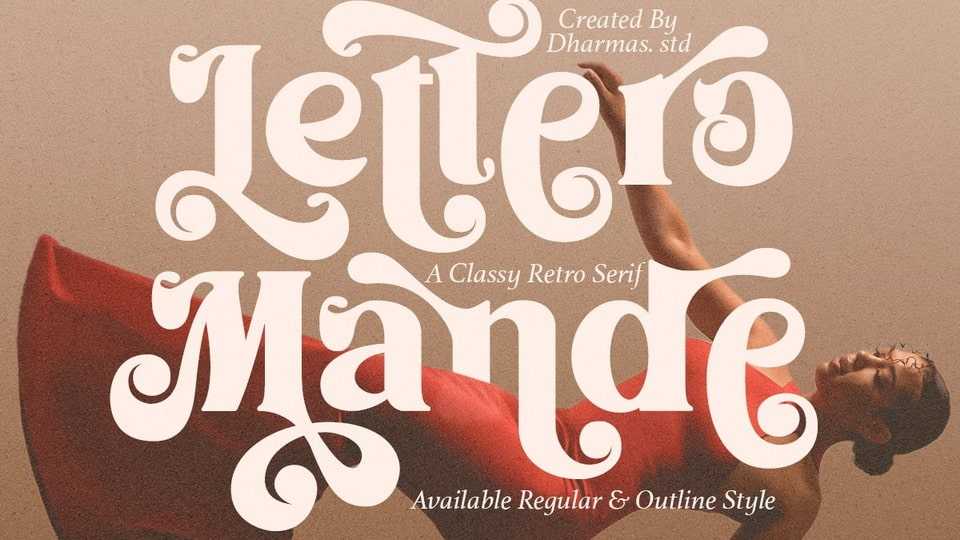
Download Lettero Mande font, a playfully nostalgic incredible vintage aesthetic typeface. This versatile and playful display font is very suitable as a logo, title, branding, posters, t-shirts, etc.